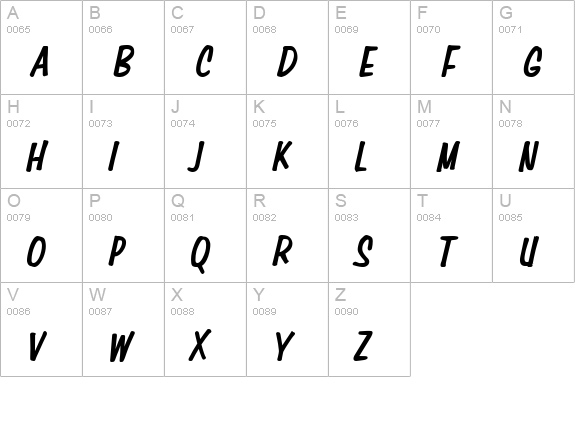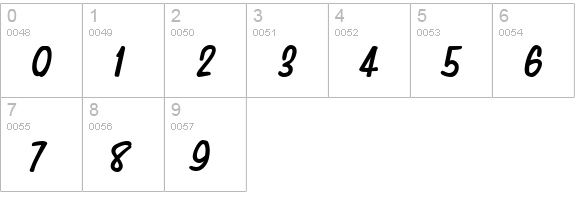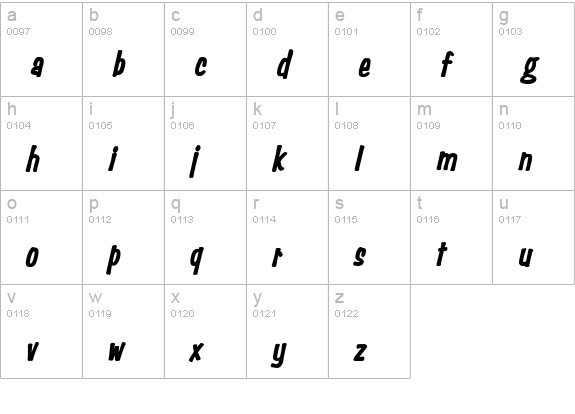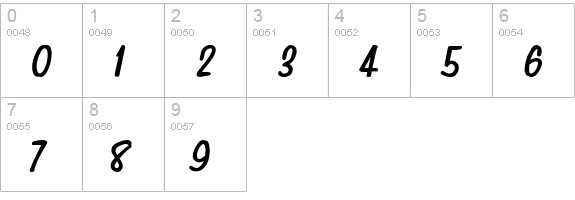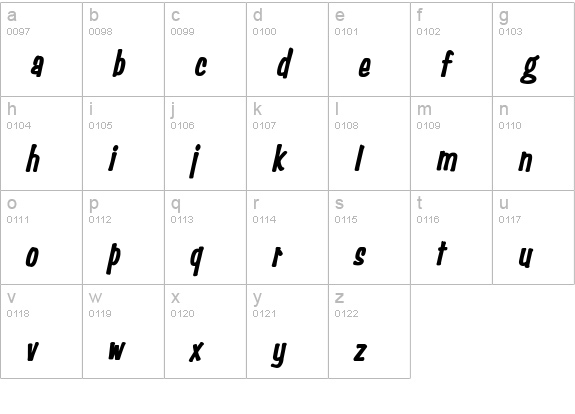
Simpson Condensed Heavy BoldItalic is a heavy, high-impact, condensed-width variant in the Simpson typeface family \xE2\x80\x94 well suited to high-impact headlines, posters, and display advertising.
Simpson Condensed Heavy BoldItalic font is the epitome of elegance and sophistication. With its bold and italicized design, it exudes a sense of power and confidence, making it the perfect choice for those seeking to make a bold statement. This font is meticulously crafted, with each letter meticulously designed to ensure a seamless and visually stunning appearance. The condensed style adds an extra touch of sleekness, making it suitable for a wide range of design projects. Whether you are creating eye-catching headlines, designing captivating logos, or crafting stunning invitations, Simpson Condensed Heavy BoldItalic font will elevate your designs to new heights. Its distinctive and unique style ensures that your work will stand out from the crowd, leaving a lasting impression on anyone who sees it. What sets this font apart is not only its remarkable aesthetics but also its availability for free. Yes, you read that right! Simpson Condensed Heavy BoldItalic font is freely available to download at FontsMarket.com. This means that you can access this exceptional font without any cost, making it a truly valuable resource for designers and creatives. Don't miss out on the opportunity to elevate your designs with Simpson Condensed Heavy BoldItalic font. Download it for free at FontsMarket.com and witness the transformation it brings to your projects. Unleash your creativity and let this font be the catalyst for your design success.